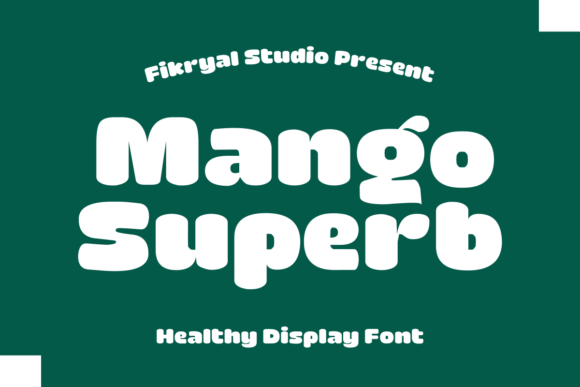
Mango Superb: The Bold Display Typeface for Creative Sellers
If you are a handmade seller looking to make your text pop with vitality and character, Mango Superb is the robust and versatile typeface designed specifically for your creative projects. This bold display style font commands attention in a crowded marketplace, offering the perfect solution for crafters who need their products to look professional and inviting. Whether you are designing physical labels, digital printables, or SVG files for cutting machines, this display font brings a unique energy that generic typefaces simply cannot match.
Mango Superb for Custom Product Labels and Packaging Tags
When creating product packaging, using Mango Superb ensures your brand identity stands out on shelves and in online listings. This robust and versatile typeface is ideal for crafting custom product labels where readability and charm are equally important. Imagine applying this bold display style to small glass jars for homemade jams, artisanal soaps, or specialty coffee blends; the letterforms are thick enough to be legible even at smaller sizes but stylish enough to convey a premium quality. For sellers of boutique items, attaching tags made with this font can elevate the perceived value of your goods, making customers feel they are purchasing something special rather than mass-produced. The versatility of these fonts allows them to work seamlessly with various design layouts, ensuring your packaging looks cohesive across different product lines.
Mango Superb for Invitations and Wedding Stationery Design
Crafting memorable wedding stationery requires a font that balances elegance with a touch of modern flair, and Mango Superb delivers exactly that with its commanding presence. By integrating this robust and versatile typeface into your invitation suites, you create an immediate visual impact that sets the tone for the event. The bold display style works exceptionally well for main headers like "Save the Date" or "You're Invited," drawing the eye immediately while remaining highly readable. For stationery designers specializing in rustic weddings or vibrant summer celebrations, this font adds a layer of personality that feels both curated and authentic. It pairs beautifully with softer script fonts for body text, creating a dynamic contrast that keeps guests engaged with the details of your design.
Mango Superb for Cricut and Silhouette Cutting Projects
For users of Cricut and Silhouette machines, selecting the right file format is crucial, and Mango Superb offers clean vector paths perfect for precise cutting. This robust and versatile typeface shines when converted into SVG-style designs for vinyl decals, stencils, and heat transfer vinyl (HTV) applications. The bold display style ensures that letters cut cleanly without losing structural integrity, which is vital for small stickers or intricate signage. Whether you are creating personalized name tags for a birthday party or large-scale wall art for a home decor shop, the clarity of these fonts guarantees a professional finish. Crafters often find that the strong strokes of this typeface hold up well against the wear and tear of daily use on mugs, tote bags, and t-shirts, making it a reliable choice for commercial merchandise production.
Mango Superb for Digital Printables and Planner Pages
In the world of digital downloads, visual appeal drives sales, and Mango Superb provides the striking aesthetic needed to capture a buyer's interest. This robust and versatile typeface is excellent for creating planner covers, habit trackers, and journal pages that require a fun yet organized look. The bold display style makes titles and section headers instantly recognizable, helping users navigate their digital planners with ease. When designing printable wall art or seasonal greeting cards, the vitality of this font adds a cheerful energy that resonates with customers looking for uplifting home decor. Because these fonts are optimized for screen viewing as well as high-resolution printing, your digital products will look crisp whether viewed on a tablet or printed at home.
Mango Superb for Social Media Graphics and Brand Assets
Social media platforms are visual battlegrounds, and Mango Superb gives handmade businesses the edge they need to stop the scroll. With its bold display style, this font creates headlines that demand attention in Instagram stories, Facebook posts, and Pinterest pins. A robust and versatile typeface like this allows creators to maintain a consistent brand voice across all their marketing channels, from promotional banners to product mockups. The character-filled letterforms help establish a distinct brand identity that customers can easily recognize among thousands of other posts. By using this font consistently in your social media graphics, you reinforce your brand's personality and build trust with your growing audience.
Pairing Mango Superb for Balanced Typography
To maximize the impact of Mango Superb, consider how it interacts with other font styles in your designs. While this bold display style commands attention as a headline, it pairs wonderfully with clean sans serif fonts for body text to ensure long paragraphs remain easy to read. Alternatively, combining it with a delicate handwritten font can create a charming contrast suitable for romantic invitations or boutique branding. The key is to let the robust and versatile nature of these fonts shine by giving them space to breathe within your layout. Avoid overusing heavy weights in every section; instead, use the boldness strategically to highlight key messages, prices, or calls to action.